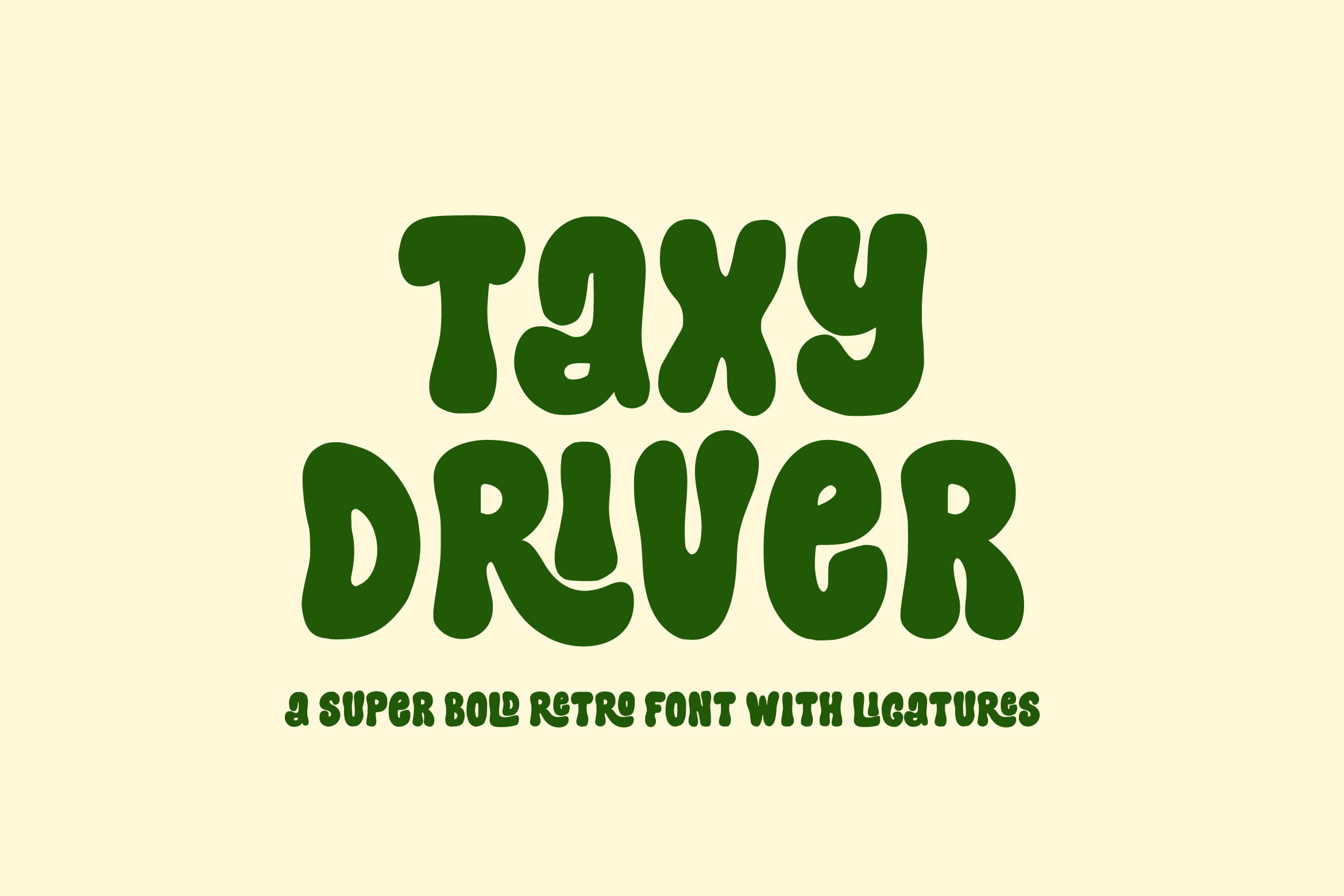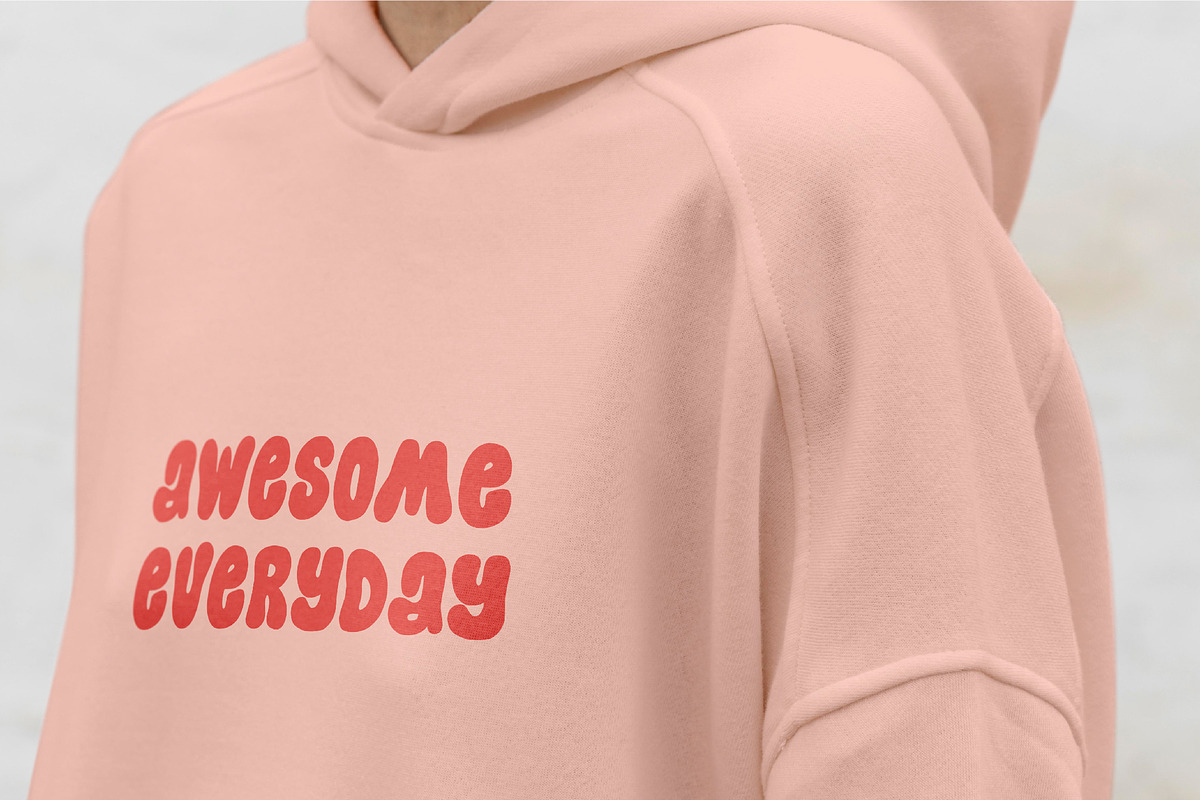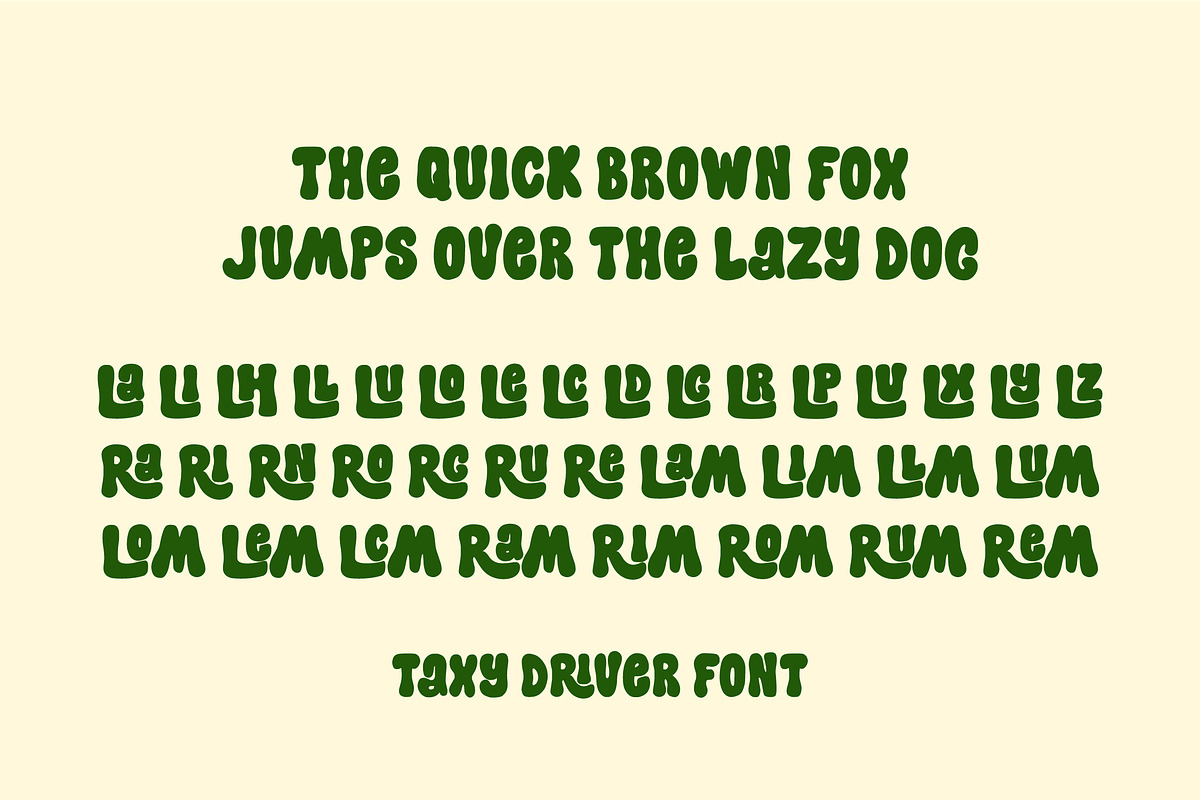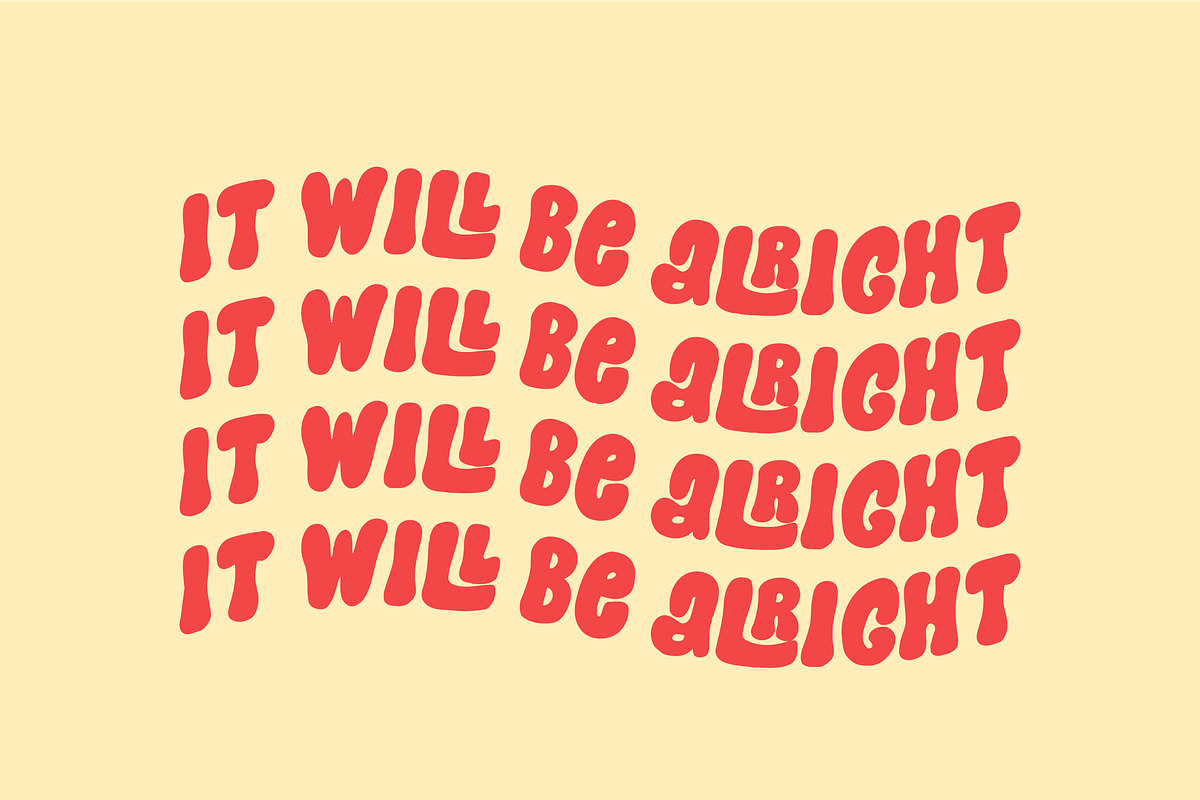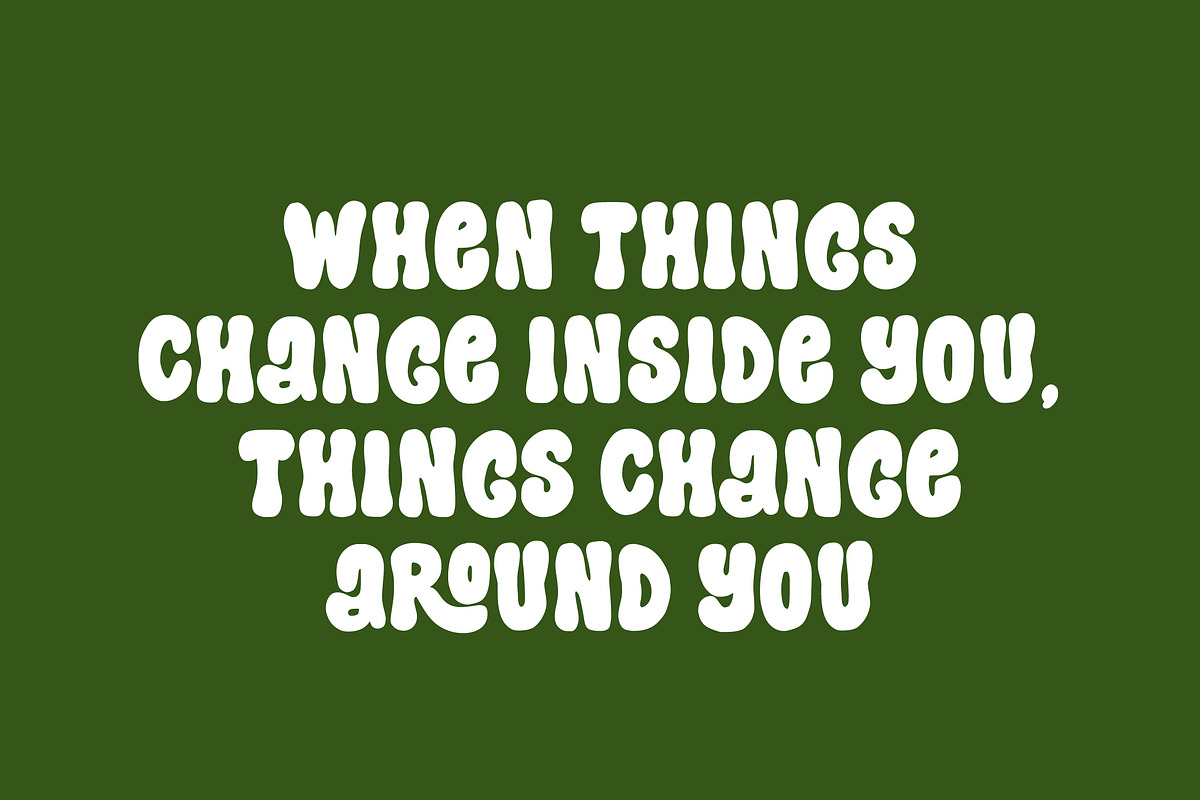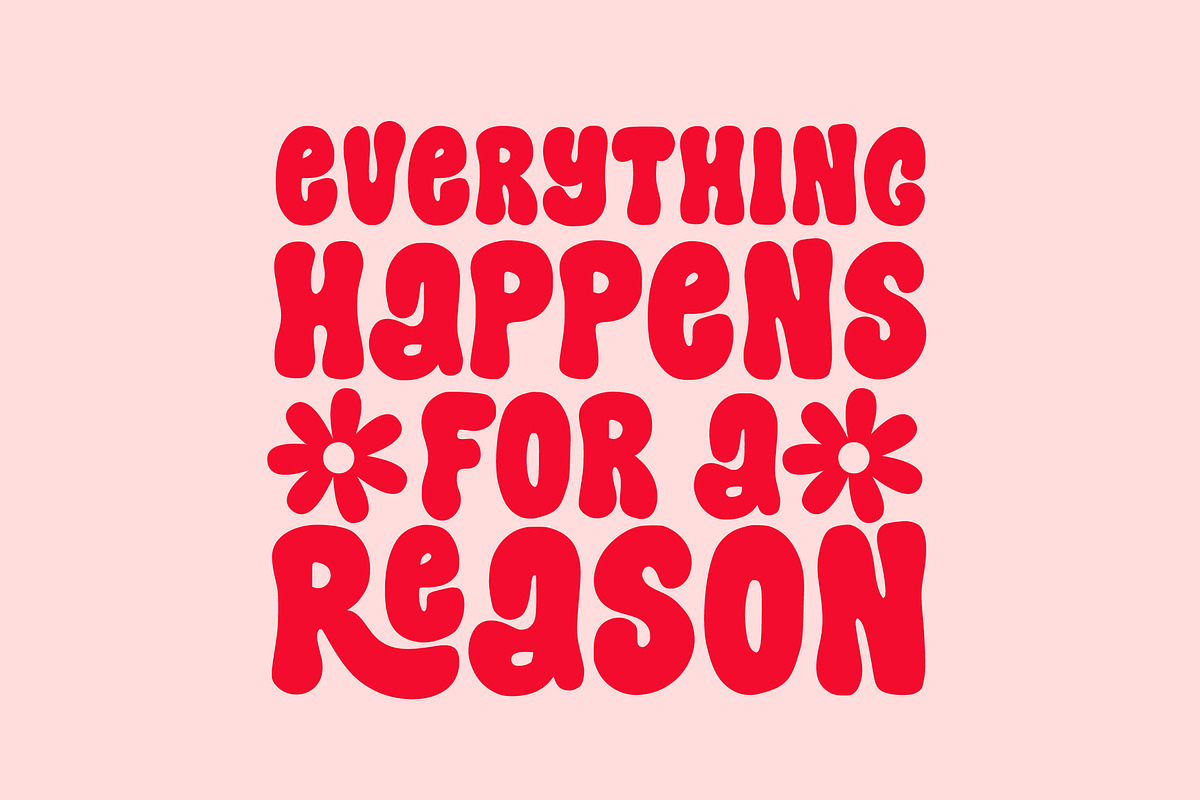
Taxy Driver Retro Bold Font
Introducing, Taxy Driver - a super bold retro font with playful look. Taxy Driver will be perfect for stickers, greeting cards, logos, posters or anything that requires a fun and happiness look!